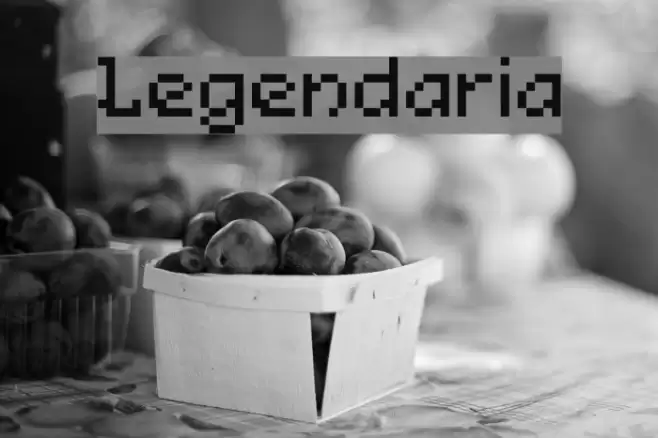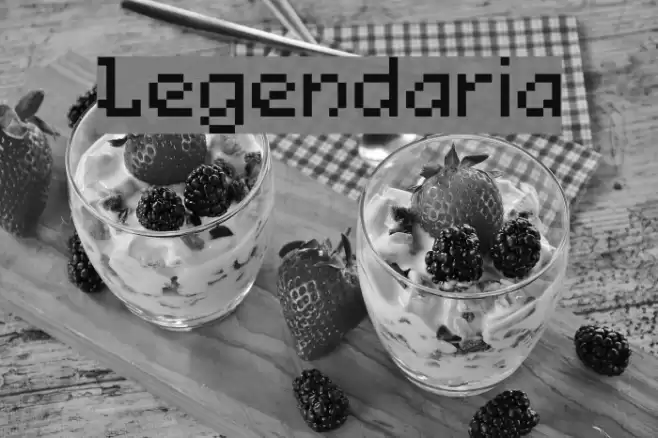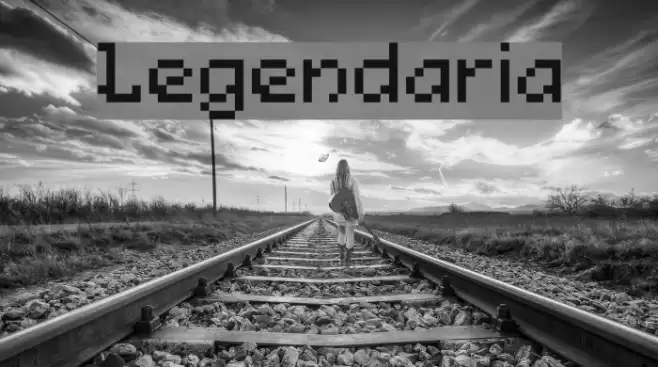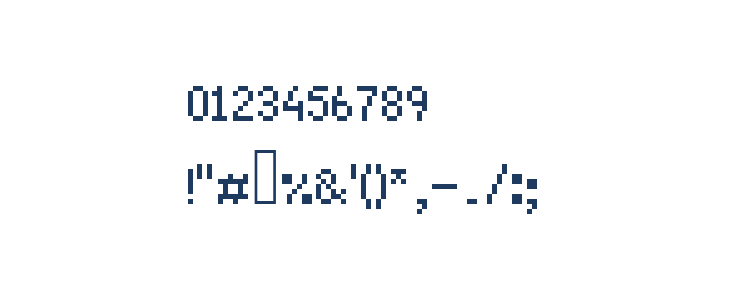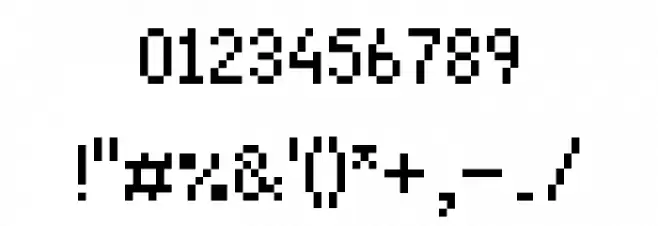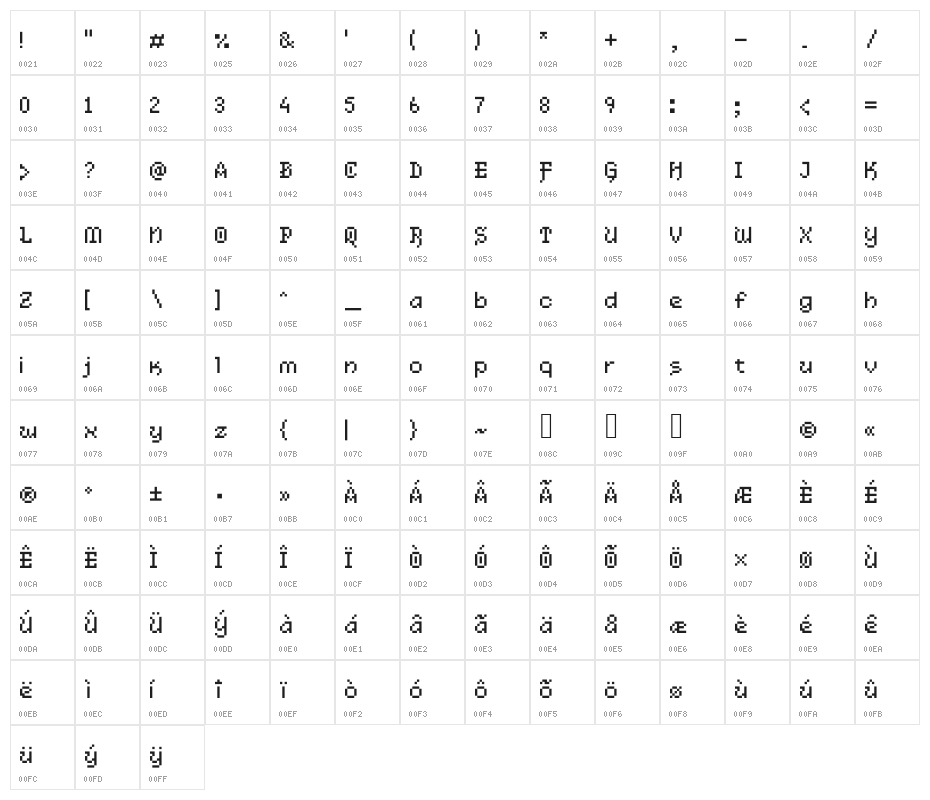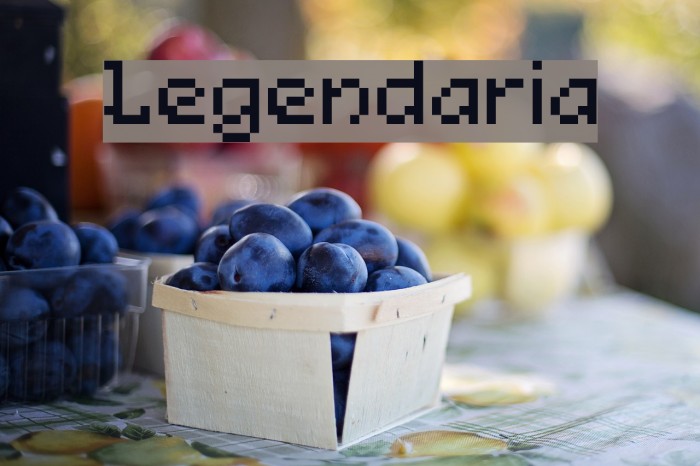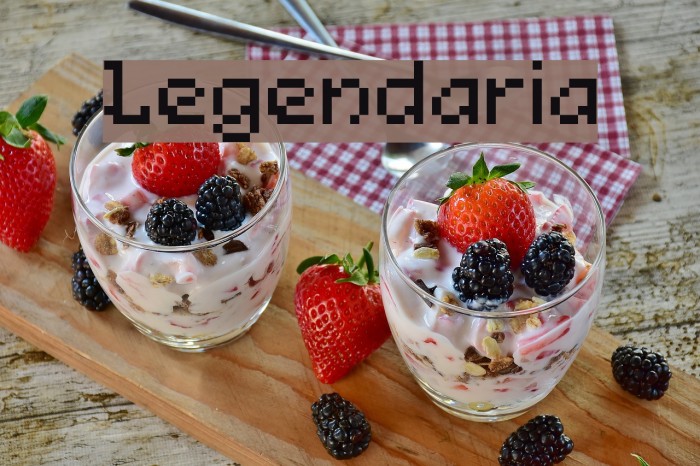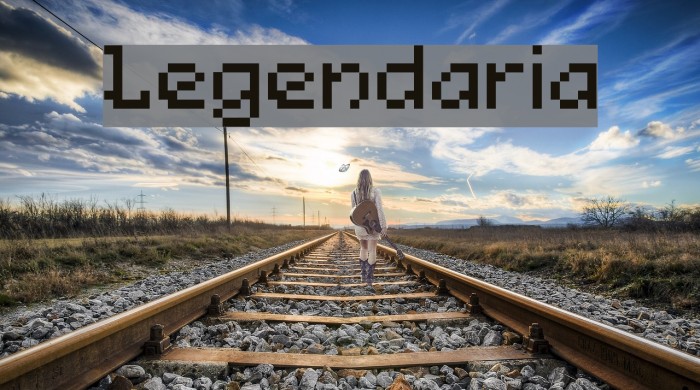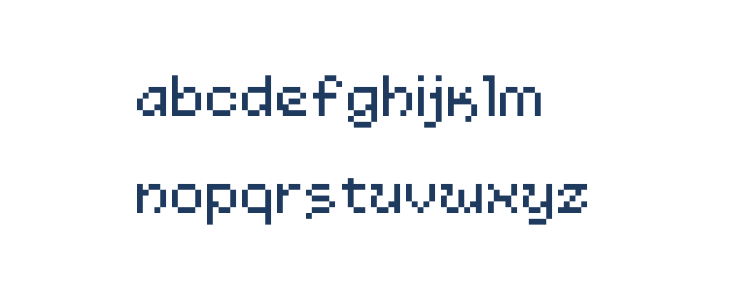
Legendaria Font
Legendaria Description
This font features a pixelated, blocky design reminiscent of early digital displays and retro video games. Each character is constructed with a uniform grid-like pattern, giving it a distinctly digital and nostalgic feel. The uppercase and lowercase letters maintain a consistent height, contributing to a monospaced appearance. The numerals and special characters follow the same pixelated style, ensuring uniformity across all glyphs. This font's simplicity and clarity make it ideal for projects that aim to evoke a sense of nostalgia or a retro digital aesthetic.
A pixelated, retro-style font with a digital, blocky appearance from Uncategorized fonts.
- Proposed Projects: Ideal for retro video games, digital art projects, pixel art designs, and nostalgic branding.
- Overall Style: Retro, Digital
- Use Case: Logos, Digital displays, Video games